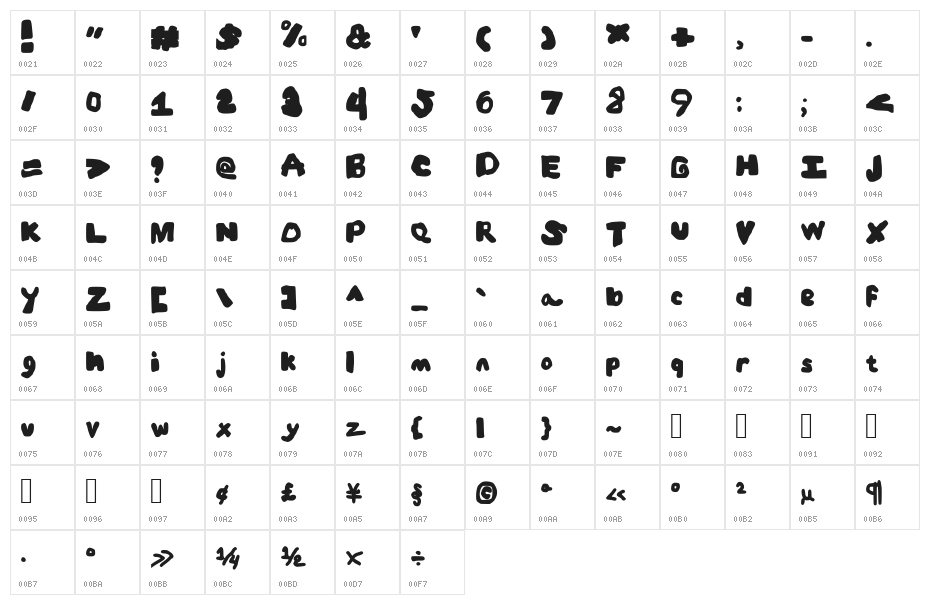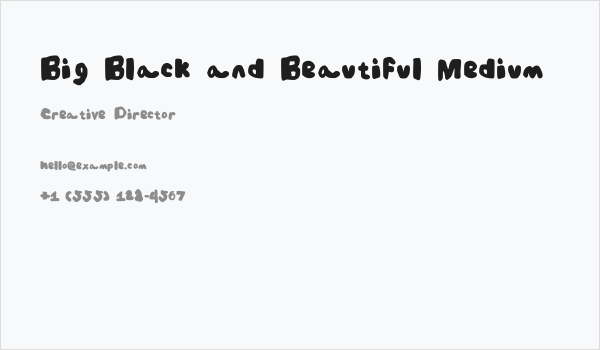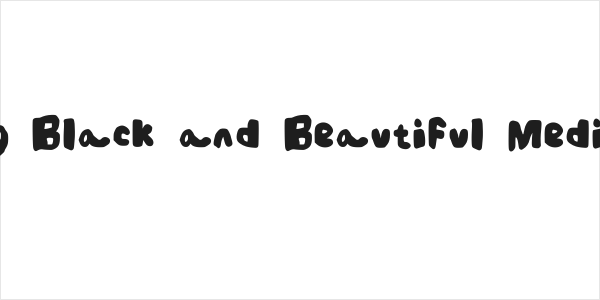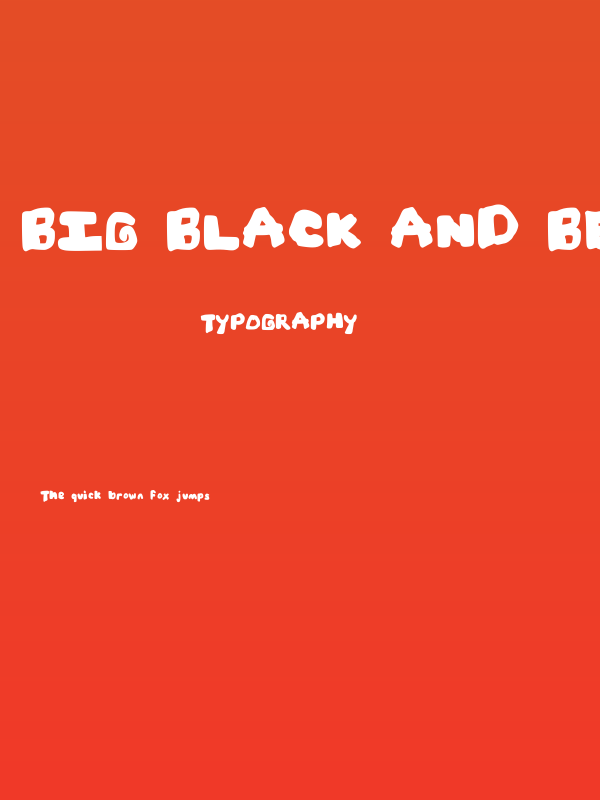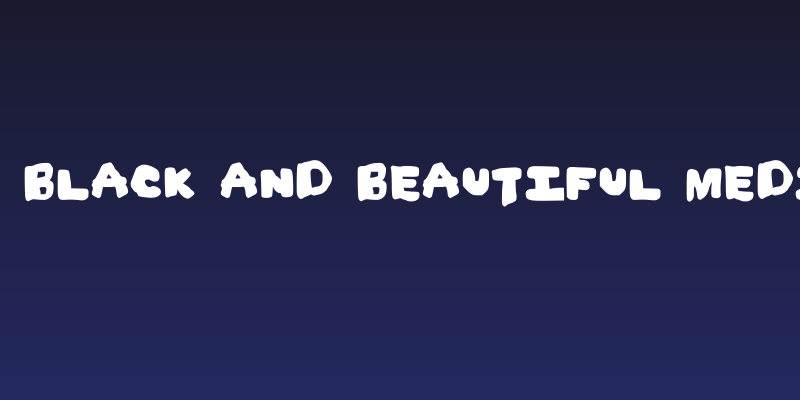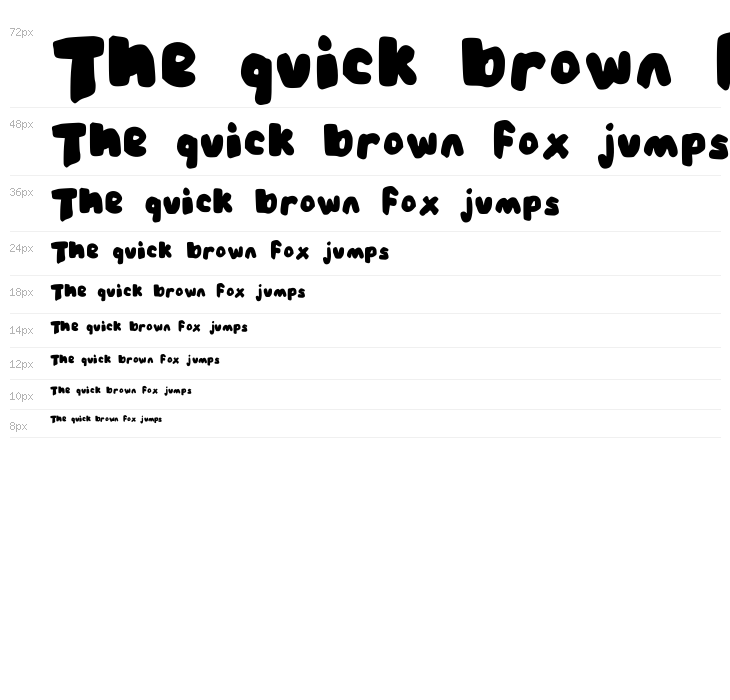
Big Black and Beautiful Medium Font
Big Black and Beautiful Medium Description
This font is characterized by its bold, playful, and highly expressive style. The letters are thick and rounded, giving them a bubbly appearance that exudes a sense of fun and creativity. The uppercase and lowercase letters maintain a consistent weight, contributing to a cohesive look. The numbers and special characters follow the same design principles, ensuring uniformity across all elements. The font's exaggerated curves and soft edges make it ideal for projects that require a touch of whimsy and boldness. Its unique style is perfect for capturing attention and conveying a lively, energetic vibe.
| Overall Style | Playful, Energetic, Whimsical |